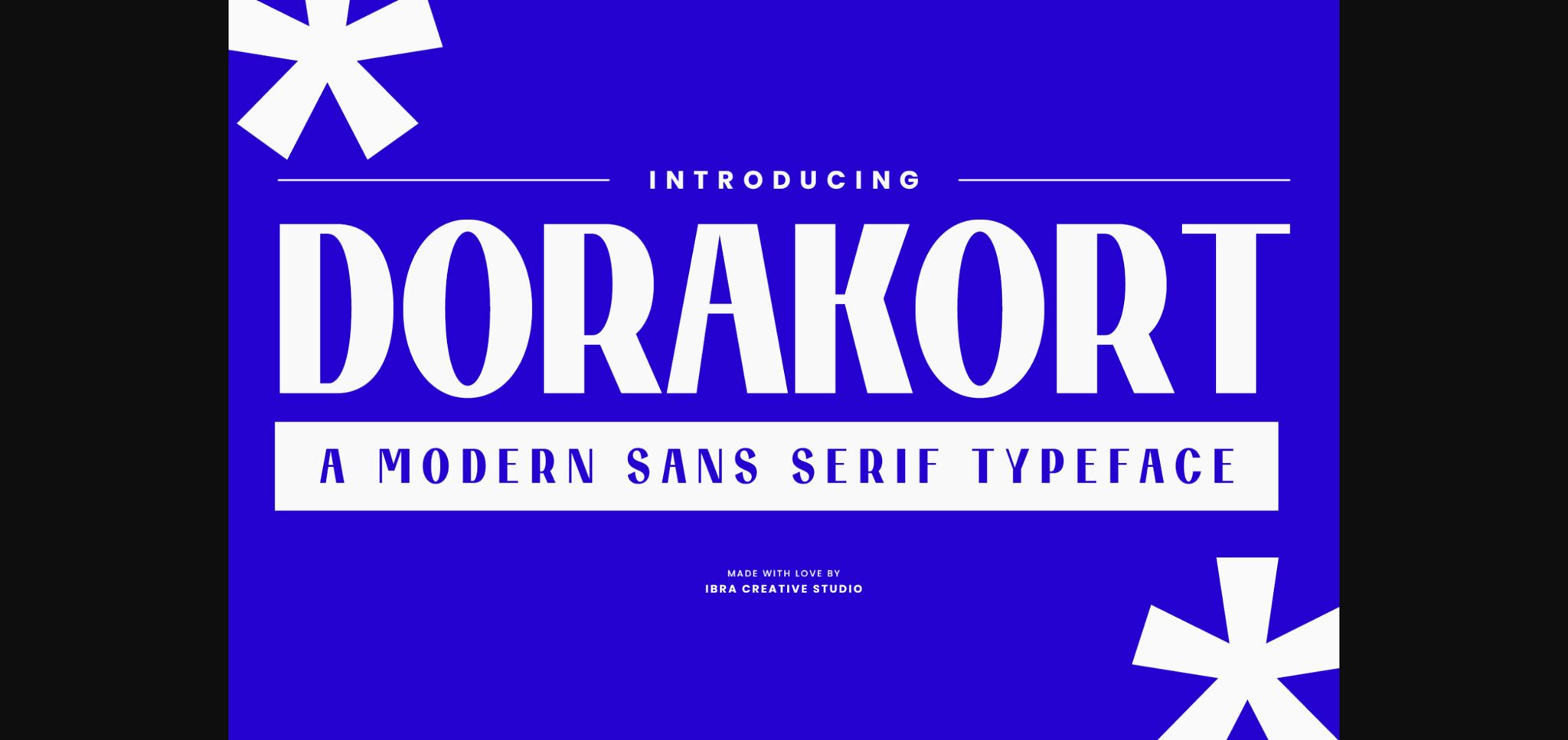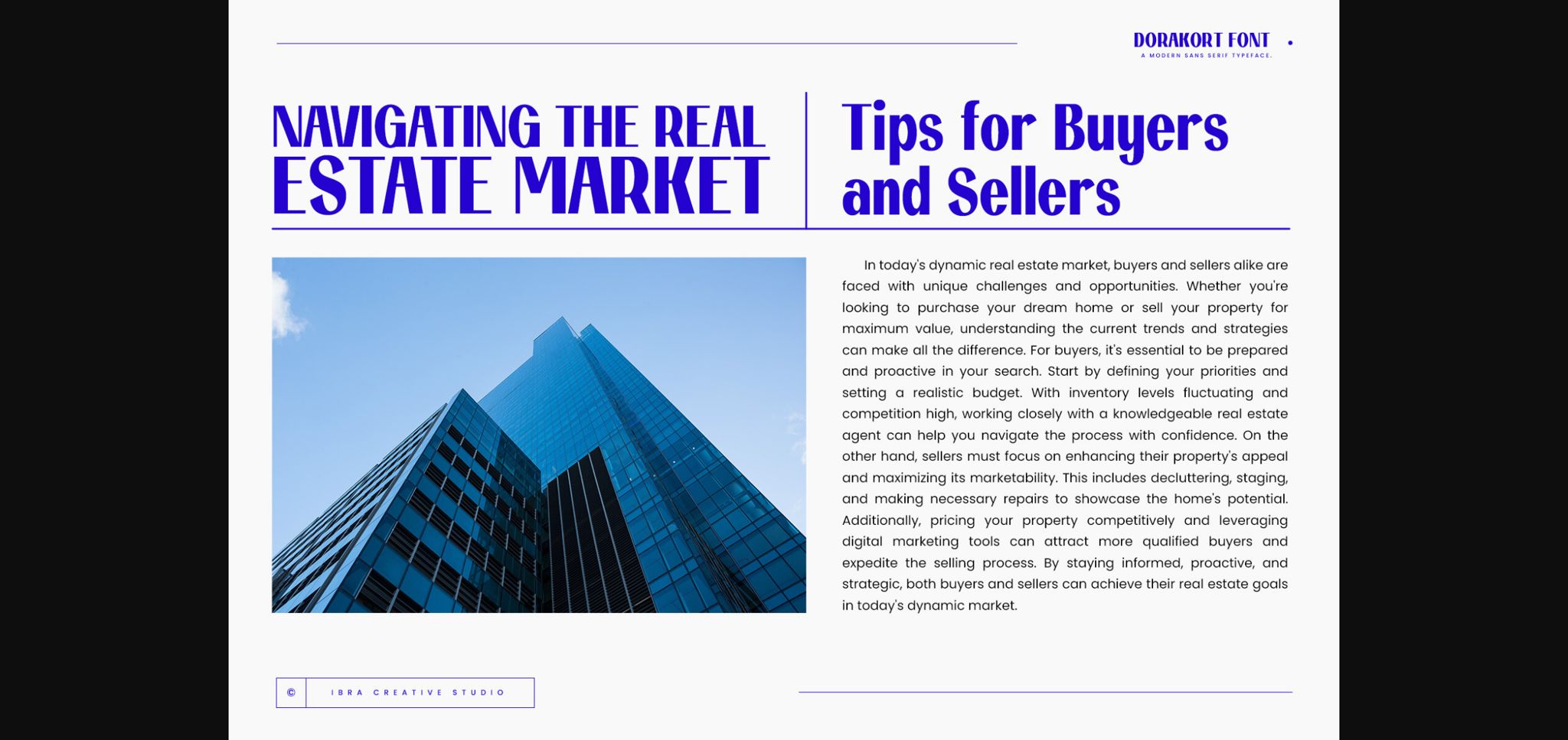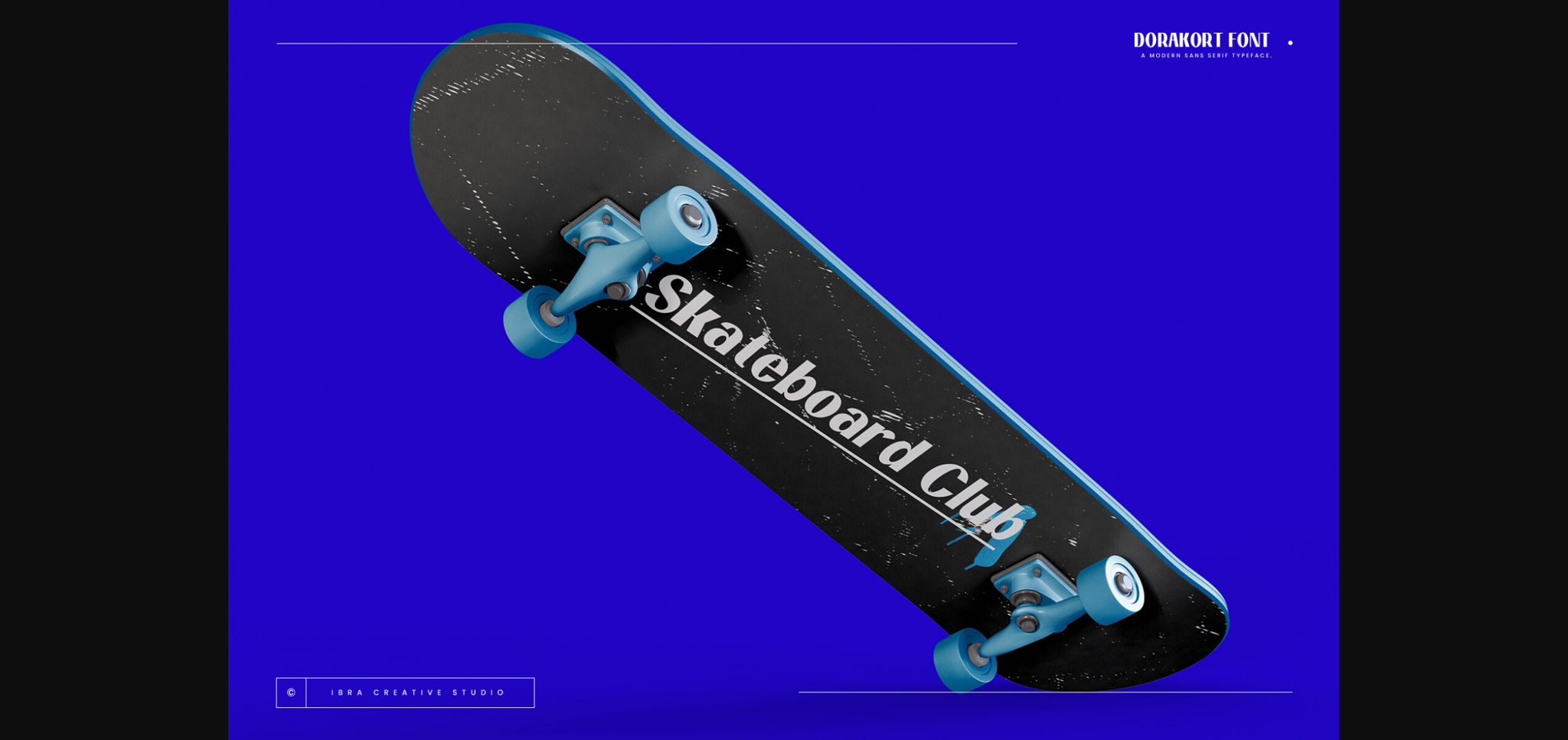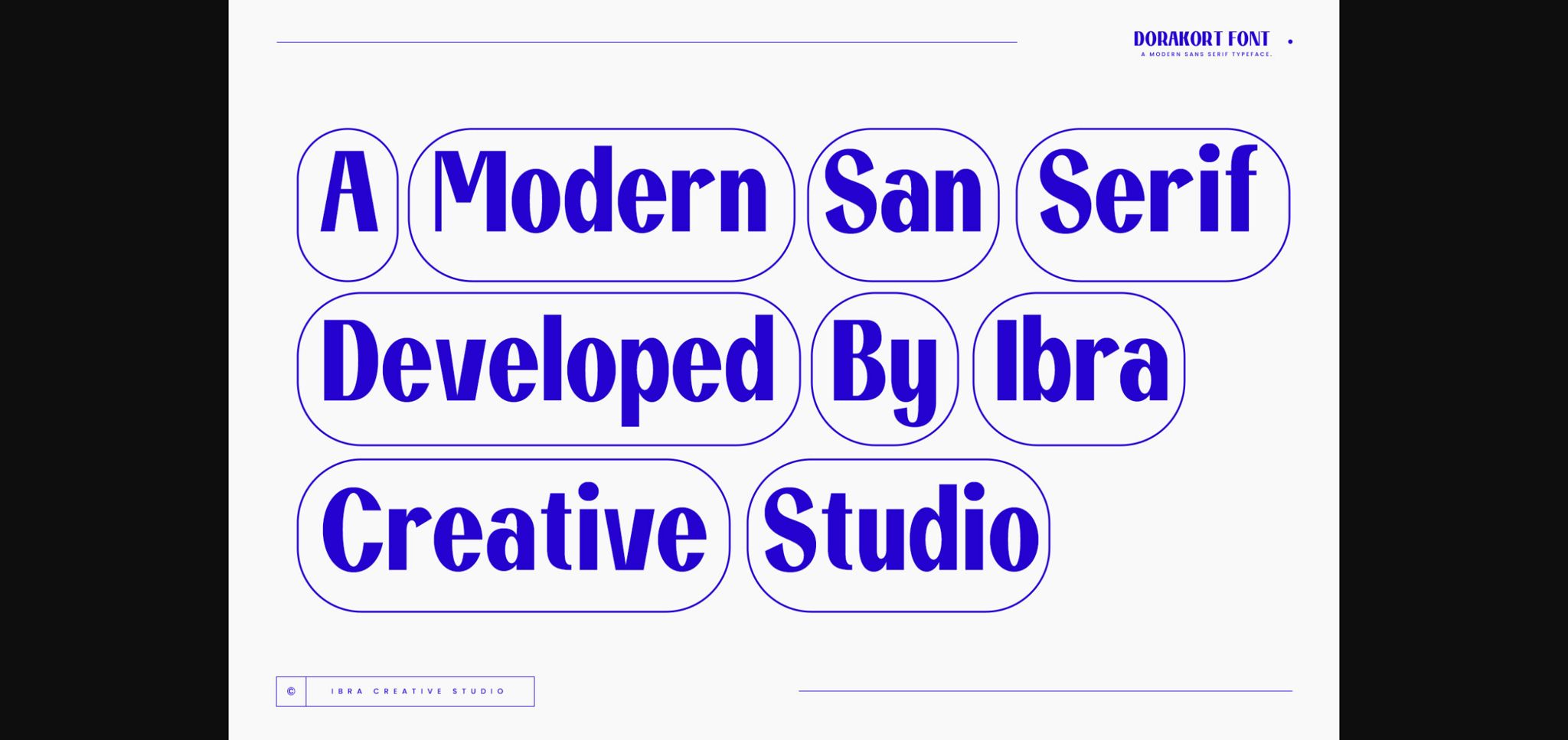
About Dorakort Font
Dorakort, a modern sans serif typeface, embodies the essence of contemporary design with its clean lines and sleek appearance. Each letter in Dorakort exudes simplicity and sophistication, making it ideal for a wide range of applications, from digital interfaces to print materials. Its minimalist aesthetic ensures readability and versatility, while subtle geometric elements add a touch of visual interest.